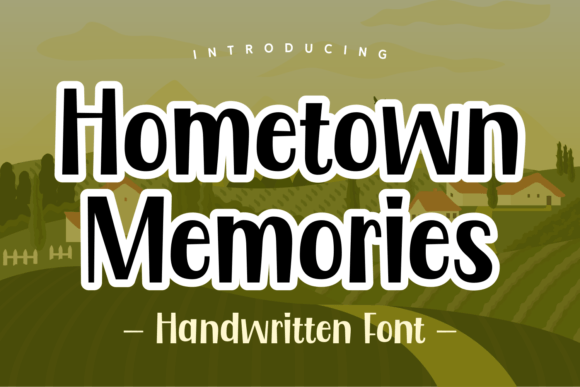
Immerse yourself in the whimsical world of Hometown Memories, a display font that dances with playful elegance and delivers a captivating aura to your creative endeavors. This enchanting typeface, meticulously crafted by Refy (7NTypes), is a symphony of unique bouncy characters, each possessing an infectious energy that promises to bring life to your designs.
Unleash your creativity and embark on a nostalgic journey with Hometown Memories. Its joyous and vibrant nature will transport you back in time, evoking fond memories of simpler days and cherished moments. Let this font ignite your imagination and inspire you to create heartfelt and captivating designs that resonate with your audience.
With Hometown Memories, you'll discover endless possibilities for expressing yourself. Whether you're crafting eye-catching labels, designing heartwarming invitations, or adding a touch of whimsy to your social media posts, this font will effortlessly elevate your work to new heights. Its versatility knows no bounds, making it the perfect companion for any creative project that demands a touch of cheerful charm.
Step into the realm of Hometown Memories and let your designs bloom with personality. This remarkable font will infuse your creations with a sense of nostalgia, warmth, and delight. It's a font that speaks to the heart, inviting your audience to connect with your message in a profound and memorable way.
So, embrace the magic of Hometown Memories and watch your designs come alive with joy and creativity. Its enchanting aura will captivate your audience and leave a lasting impression that they'll cherish forever. Download Hometown Memories today and unlock the door to endless creative possibilities.